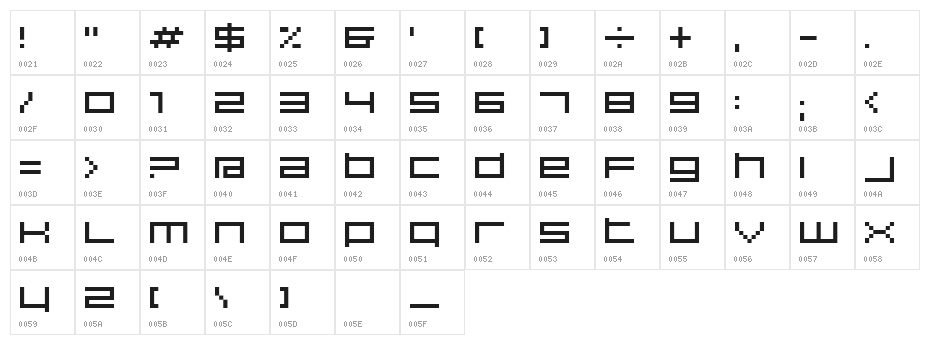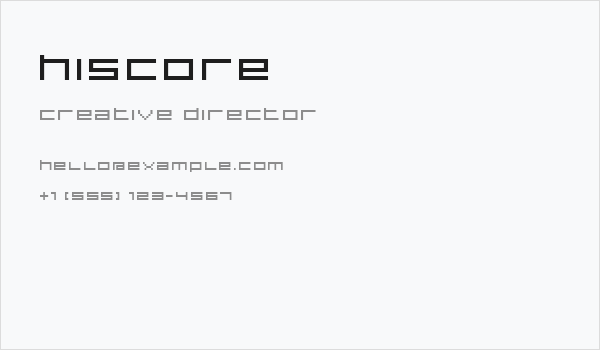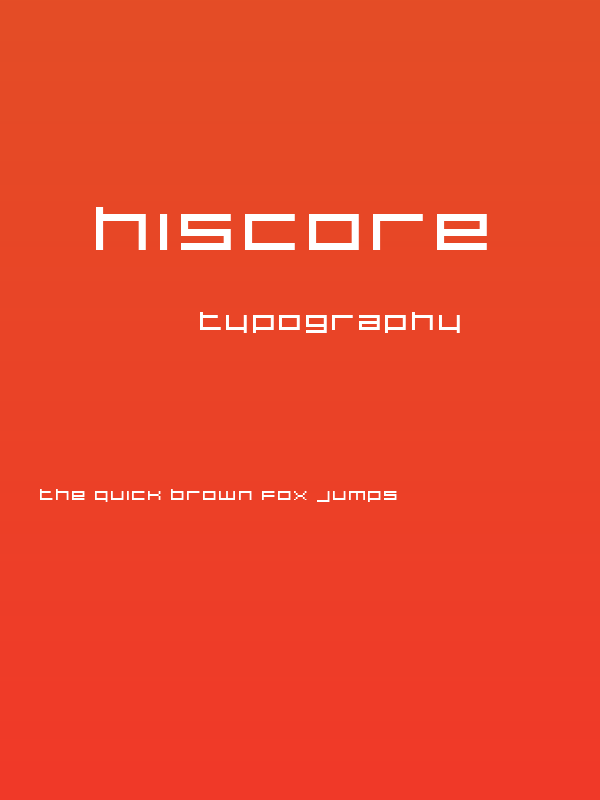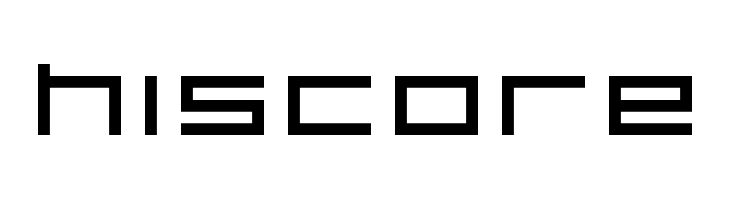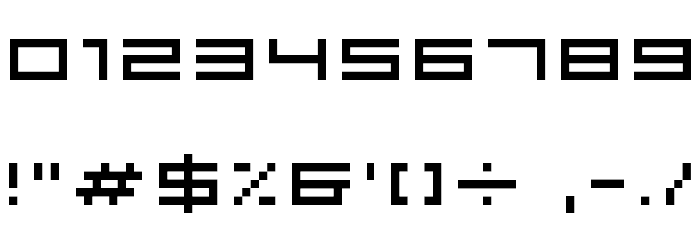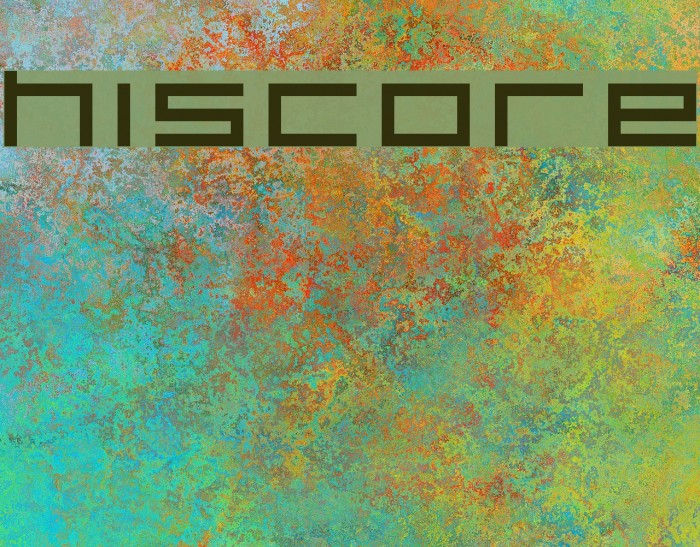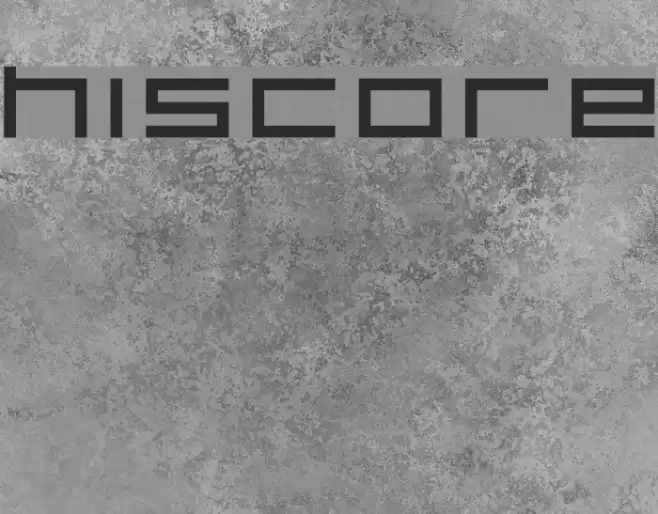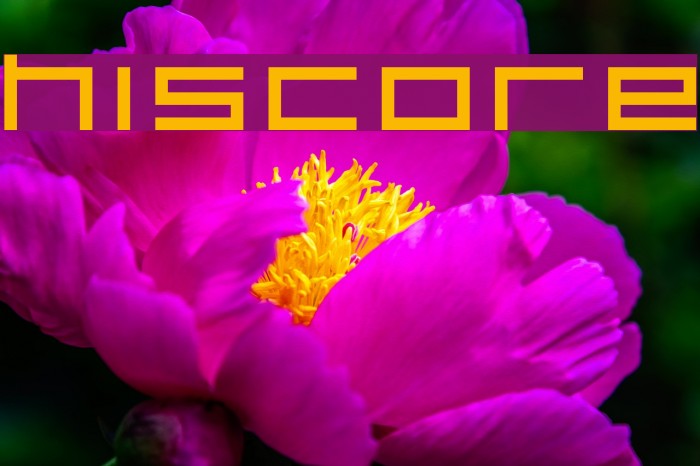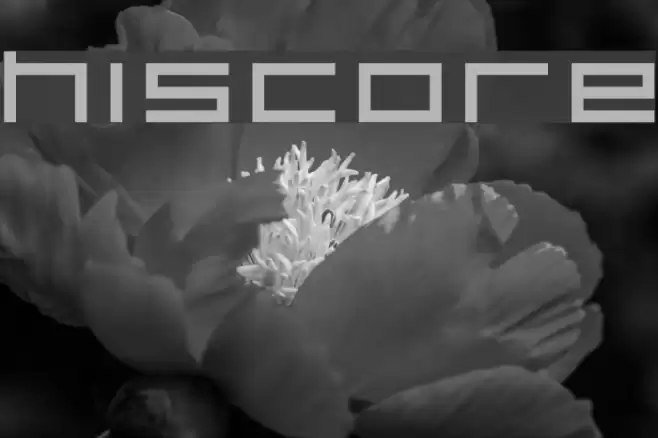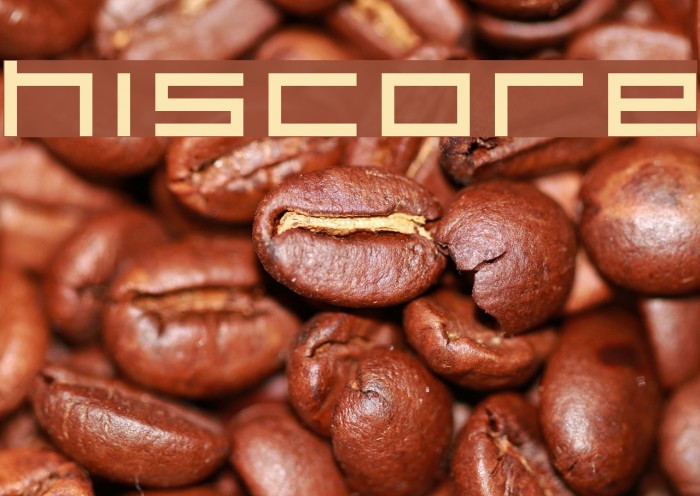
HISCORE Font
| Projetos propostos | Ideal for video game designs, retro-themed posters, digital art, and any project seeking a nostalgic digital aesthetic. |